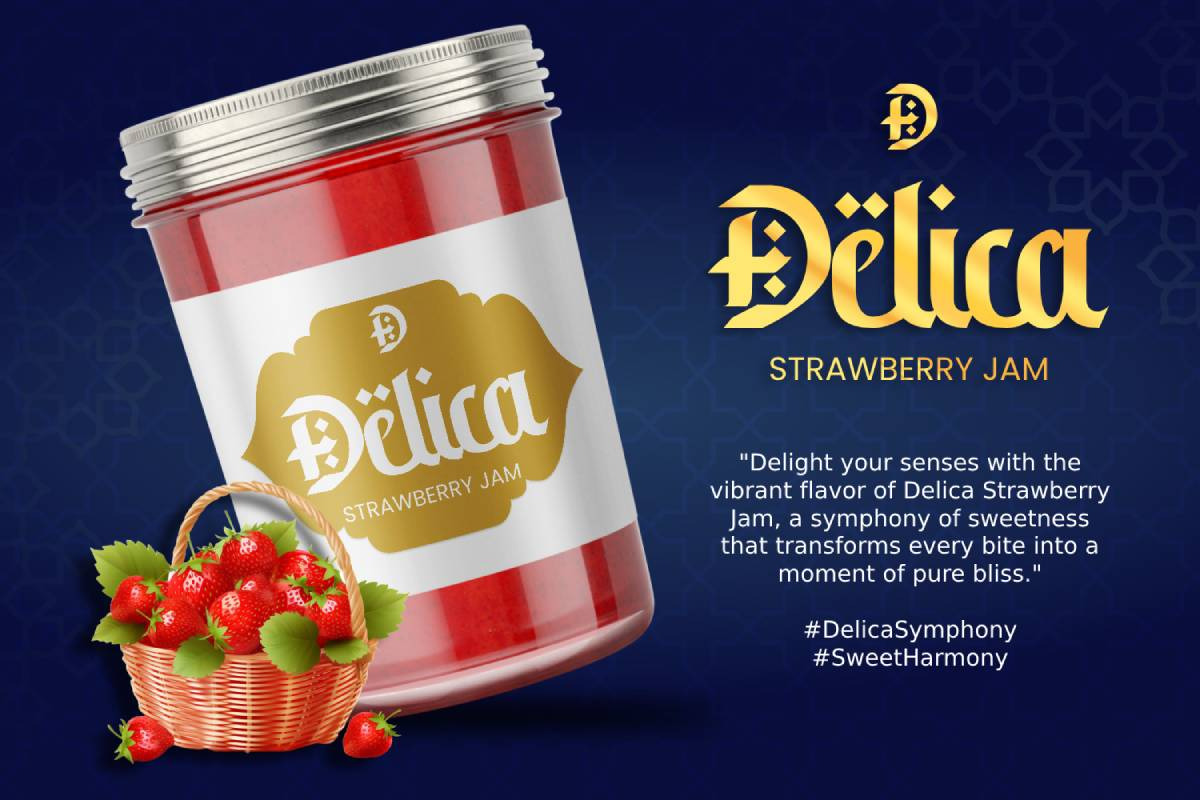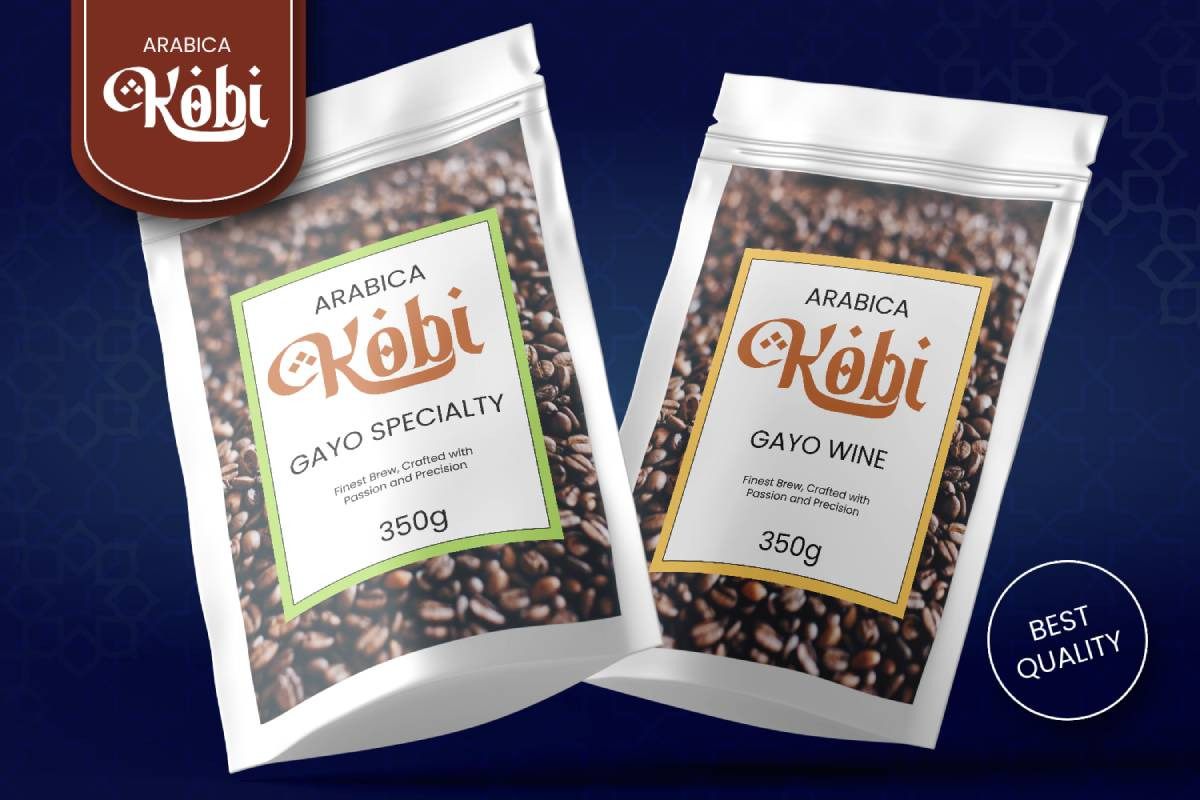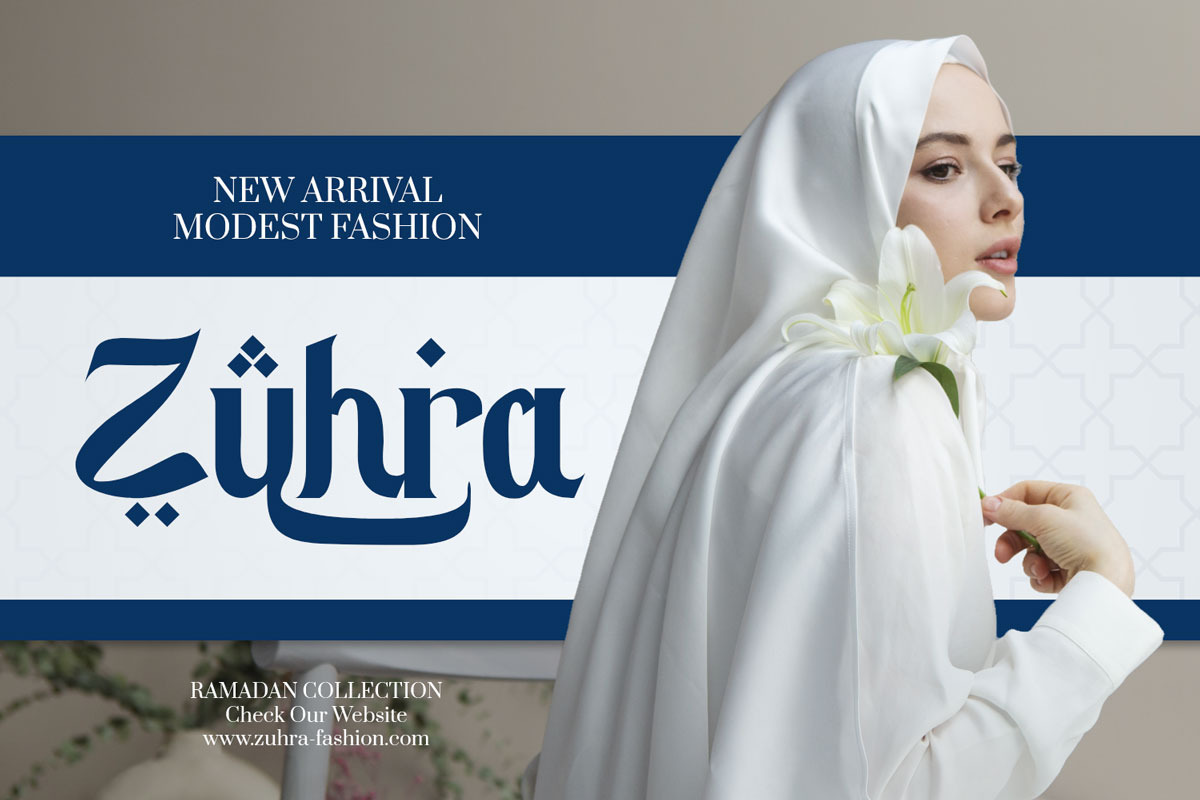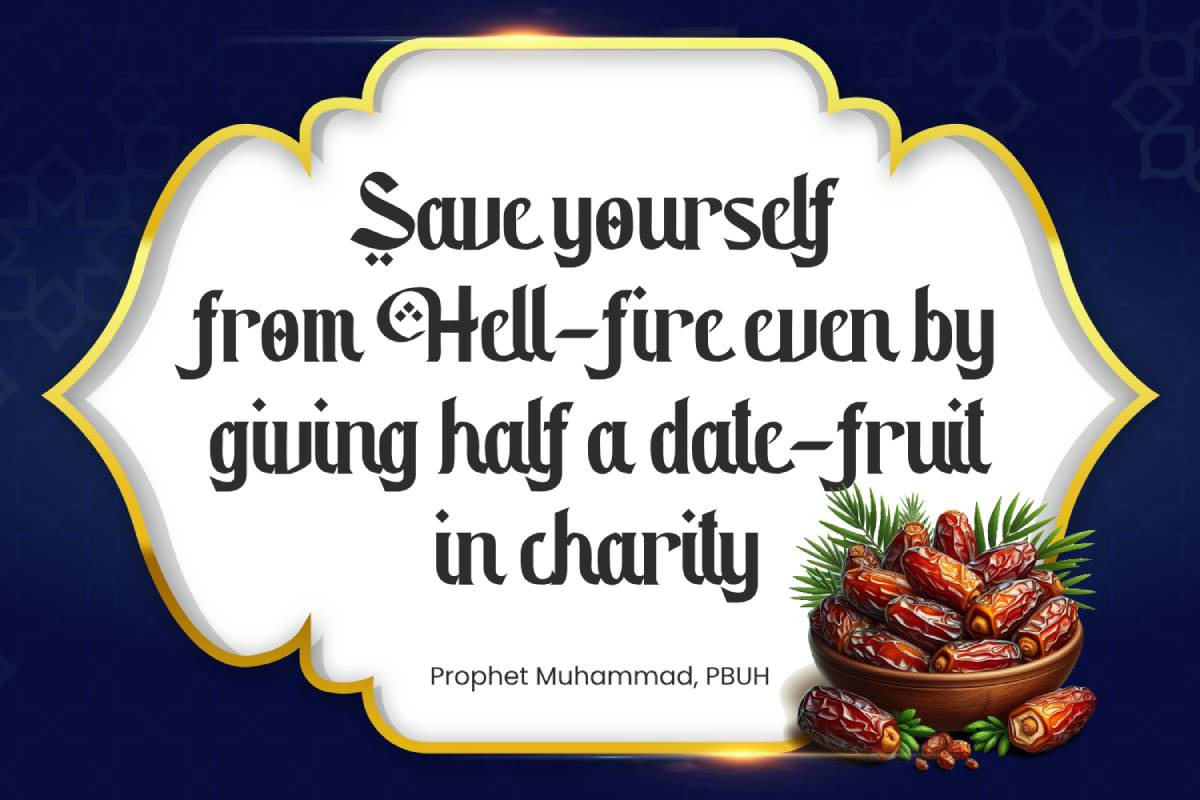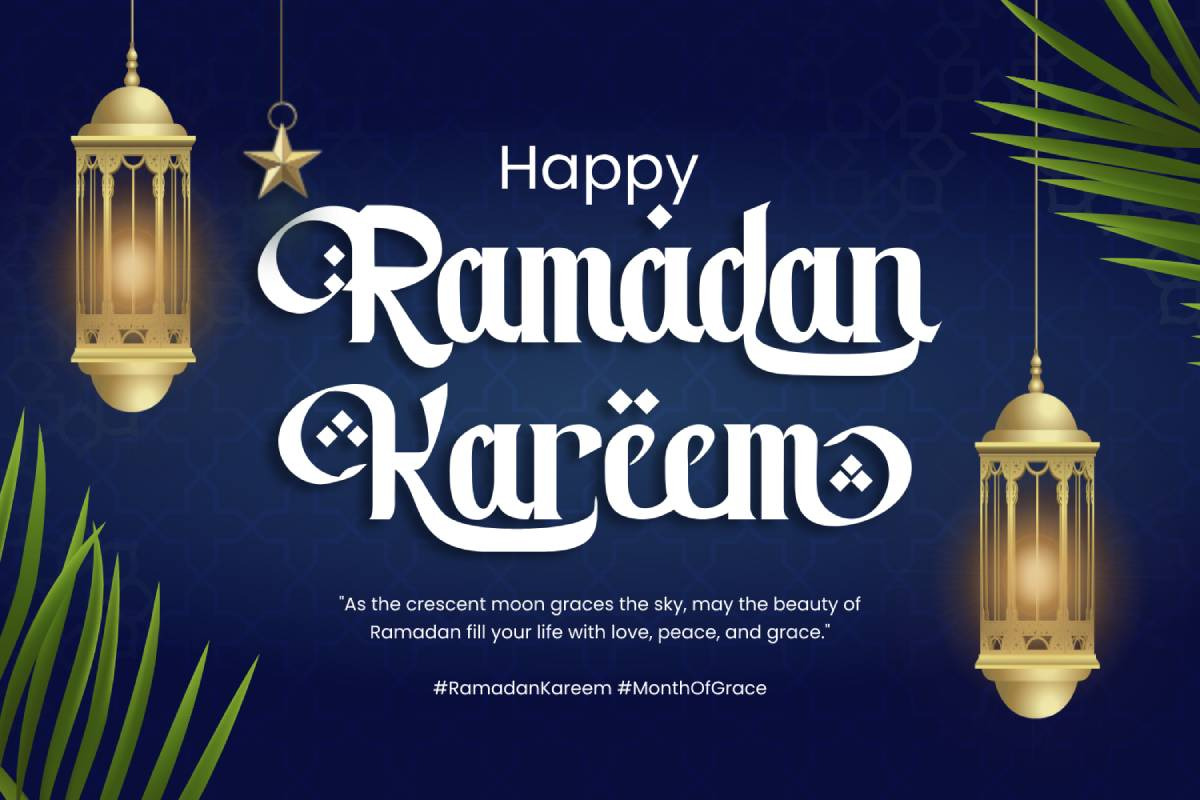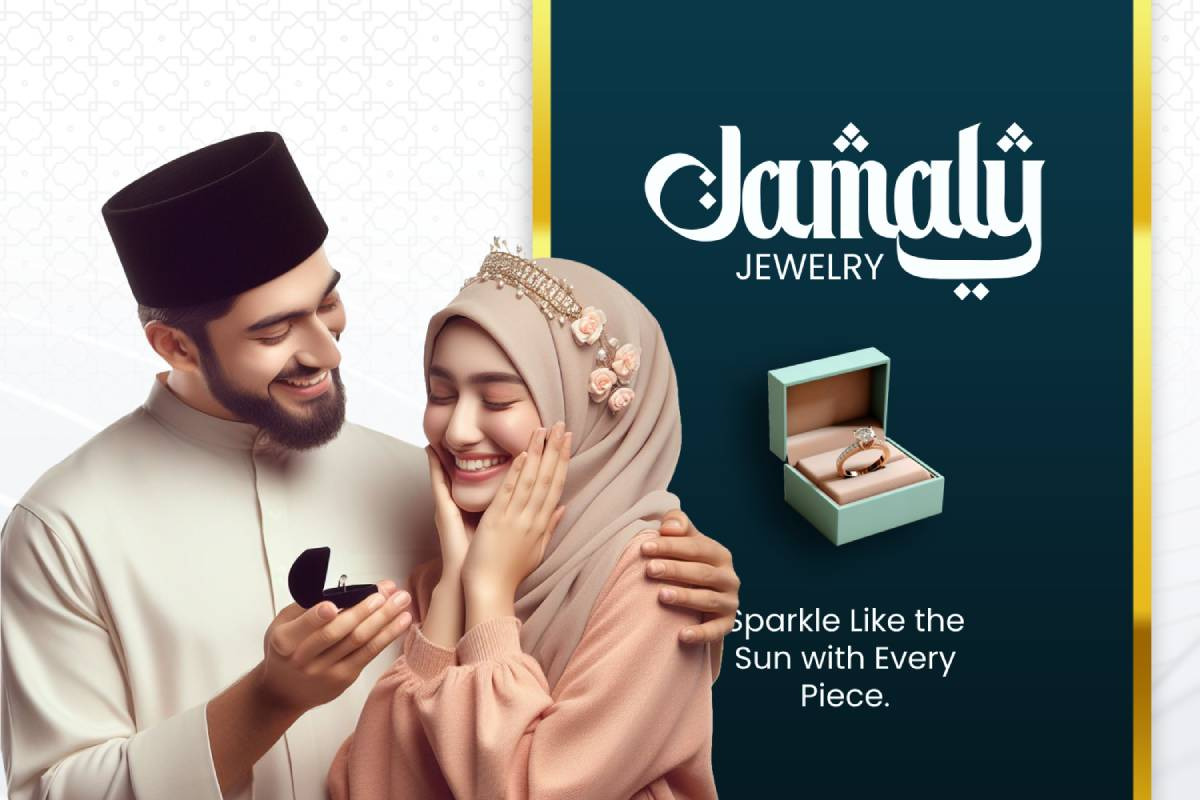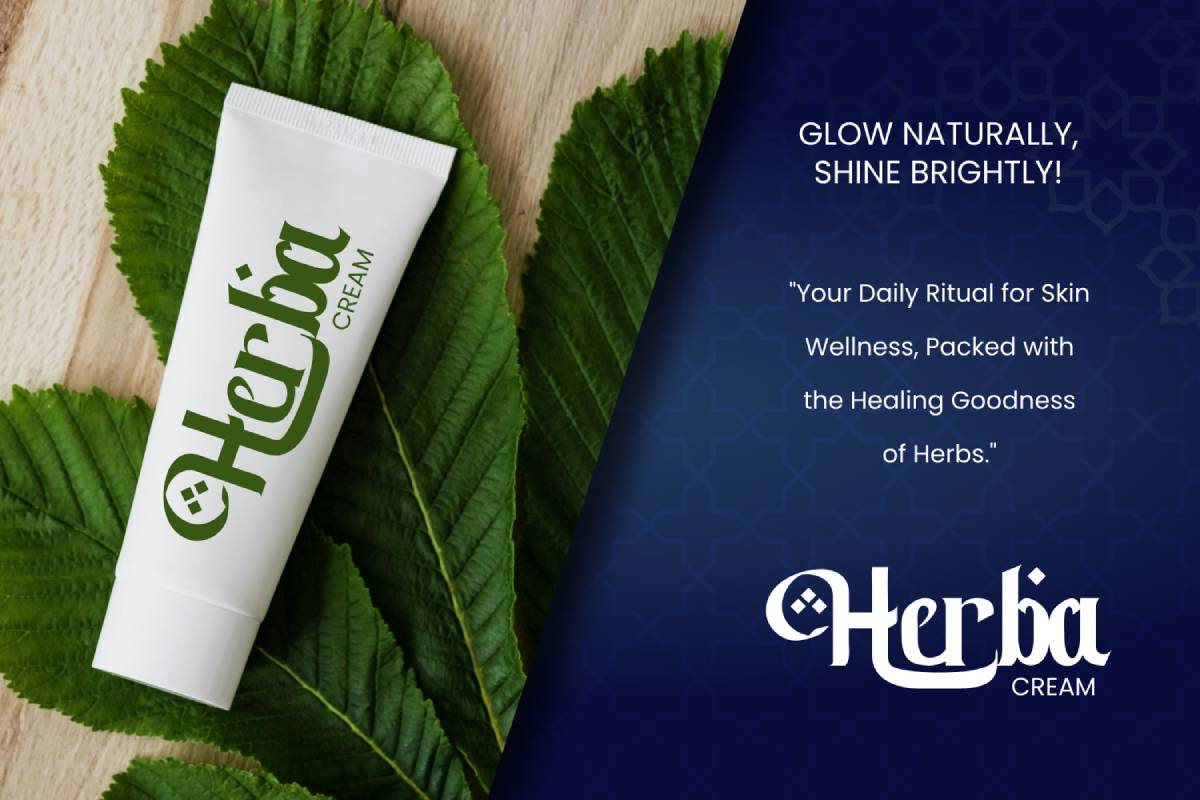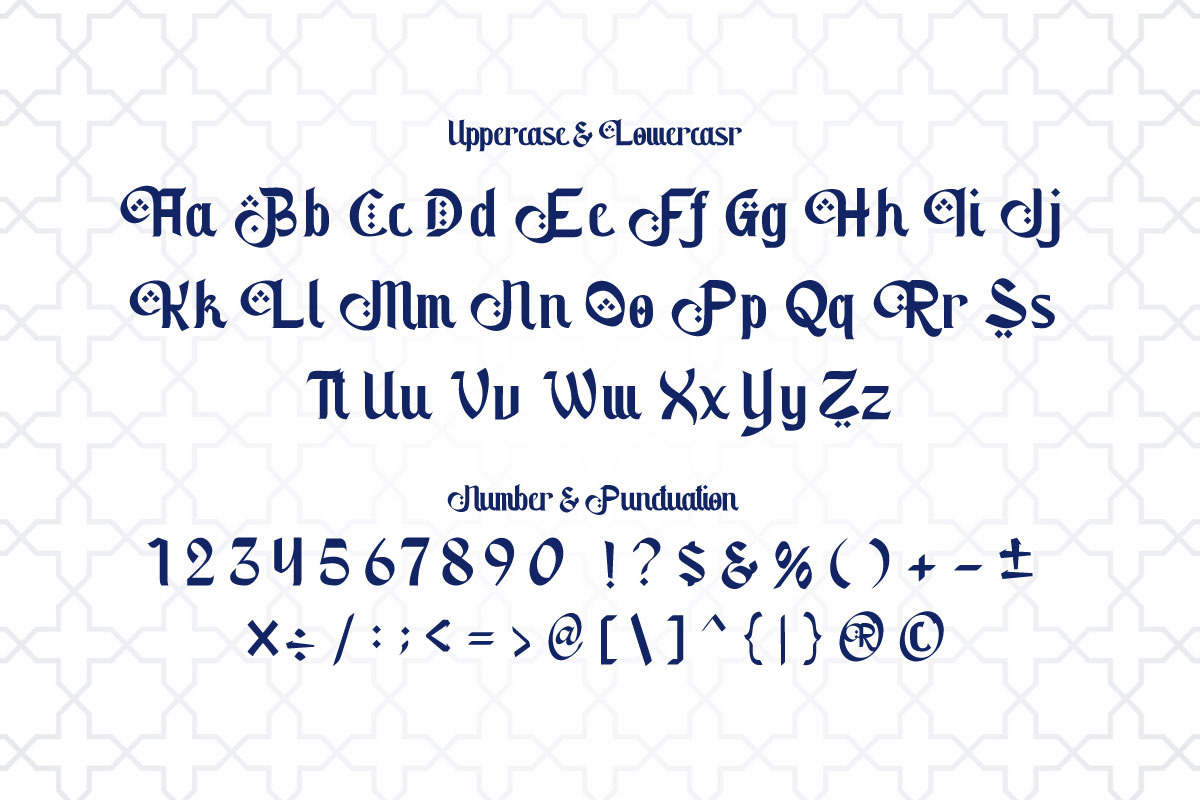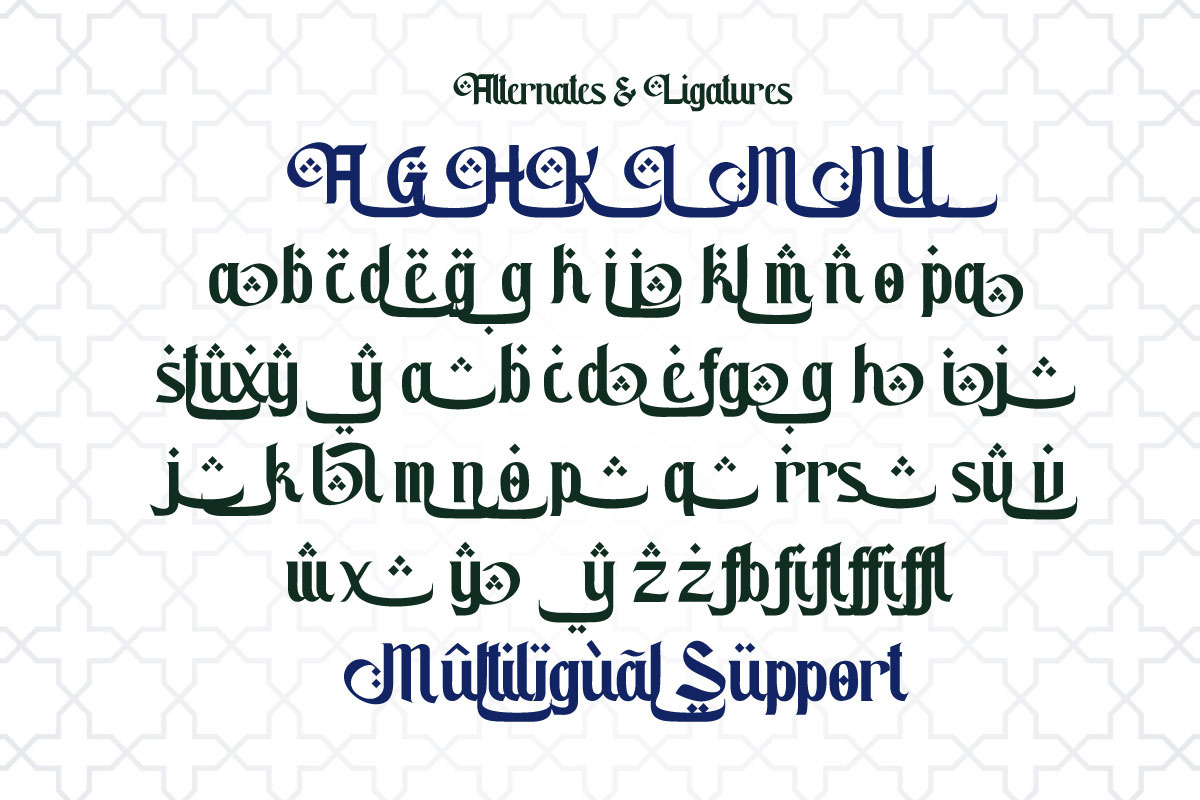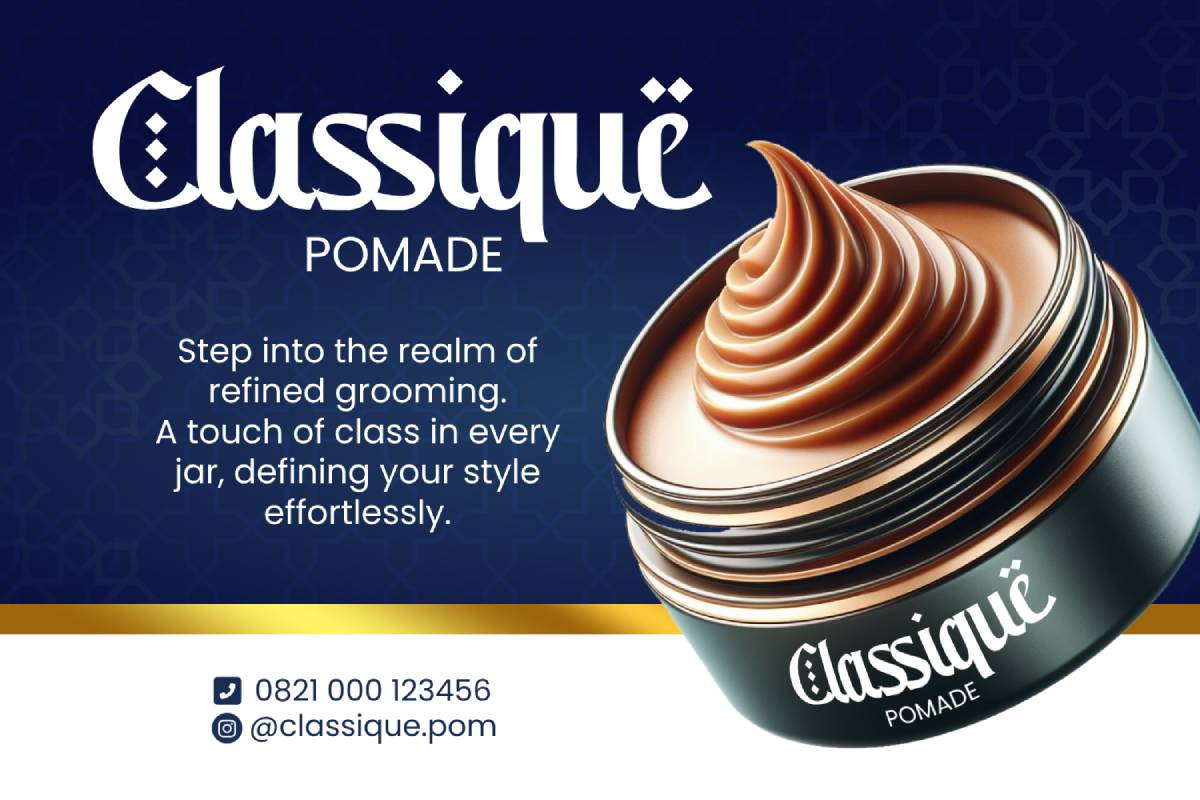
Salamy - An Arabic Style Typeface
Introducing Salamy, a captivating typeface that embodies the timeless beauty of Arabic calligraphy, now reimagined for modern design projects. Dive into the graceful curves and intricate details of Salamy, meticulously crafted to infuse every text with the essence of Arabic elegance. This exquisite font isn't just a typographic choice; it's a design voyage that seamlessly blends tradition and contemporary style to elevate your creative endeavors.
Salamy boasts a harmonious fusion of Arabic and Latin characters, ensuring global accessibility and allowing your message to transcend linguistic boundaries effortlessly. Whether you're crafting branding materials, product packaging, quotes, posters, logotypes, apparel designs, or any project that craves a touch of Arabic sophistication, Salamy stands as the perfect companion.
- Uppercase, lowercase, numbers, and punctuation
- Special alternates and ligatures for added visual richness
- Multilingual support, accommodating characters like ä, ö, ü, Ä, Ö, Ü, ß, ¿, and ¡
Salamy transcends being just a font; it's a design ally that effortlessly marries tradition with innovation. Let Salamy's unique charm enhance your creative projects, producing visually captivating results that resonate with authenticity. We invite you to embrace the artistry of design with Salamy, confident that it will become an indispensable asset in realizing your artistic visions. Embark on your design journey with Salamy and experience the timeless allure of Arabic calligraphy in every stroke!